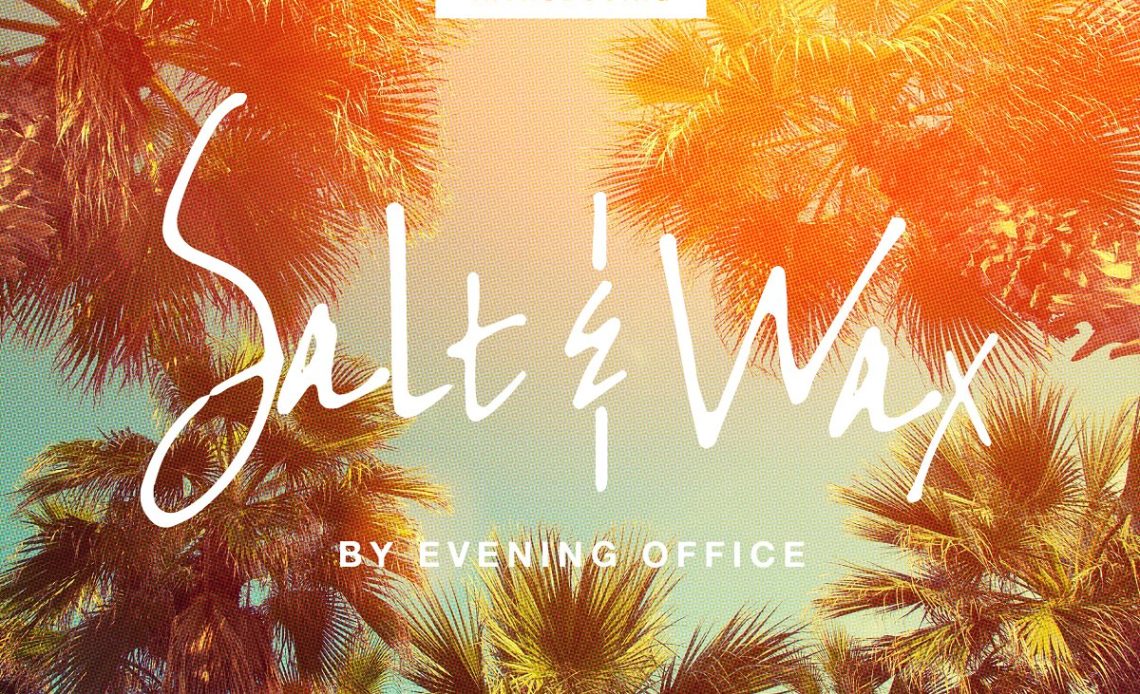
Salt & Wax is meant to have a sloppy, fast, carefree style inspired by the surf culture and works best on shorter words or phrases. That said, it doesn’t look so bad when used to replicate a handwritten paragraph at actual size.